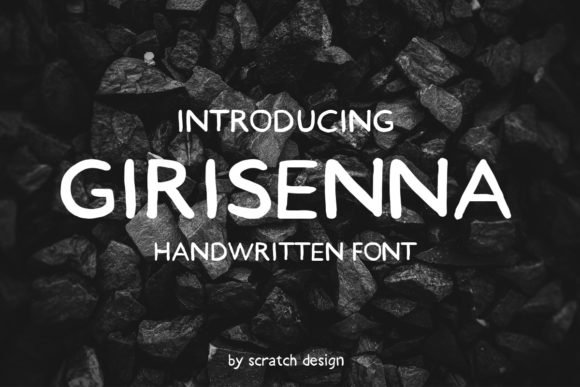
Introduction to Girisenna Font
Girisenna is a lovely handwritten font with a youthful charm.
It will add a cool vibe to any design project .
Key Features of Girisenna Font